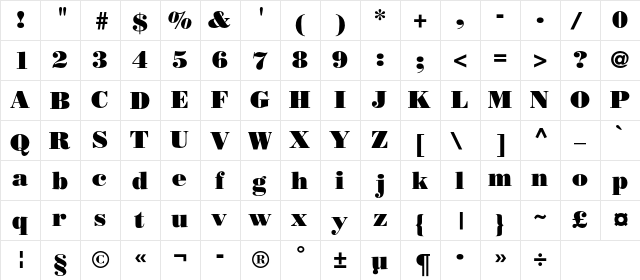
BorjomiBlackC Regular
Design Context for BorjomiBlackC Typeface
BorjomiBlackC takes a measured approach to typography — its balanced proportions and neutral character make it a reliable workhorse for both digital and print work.